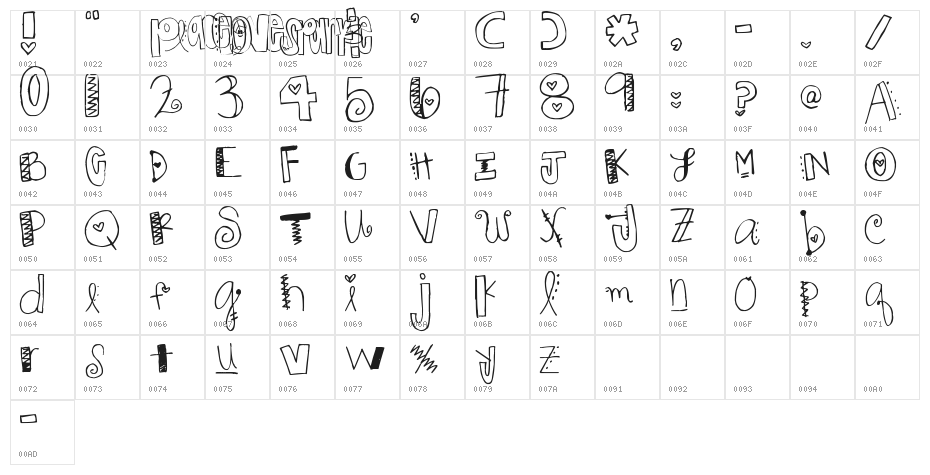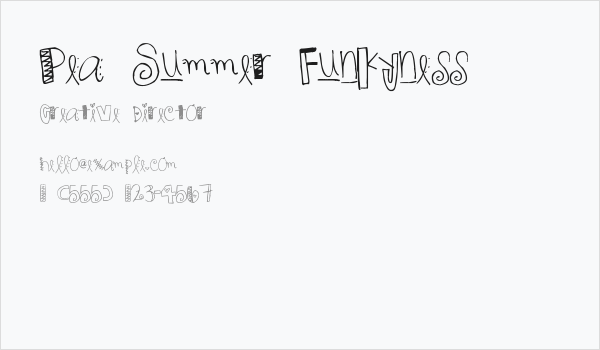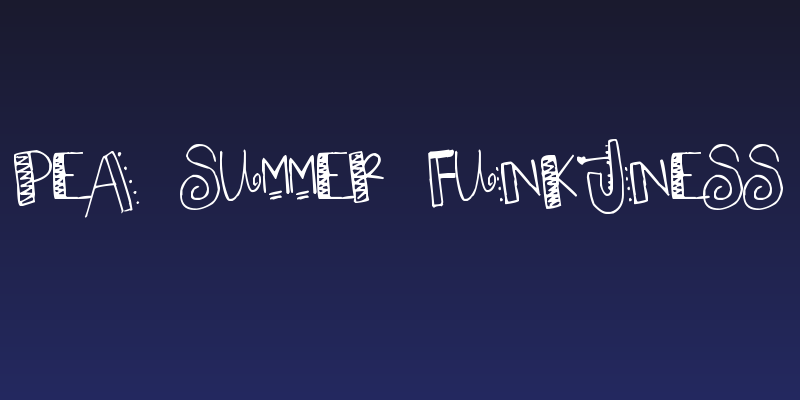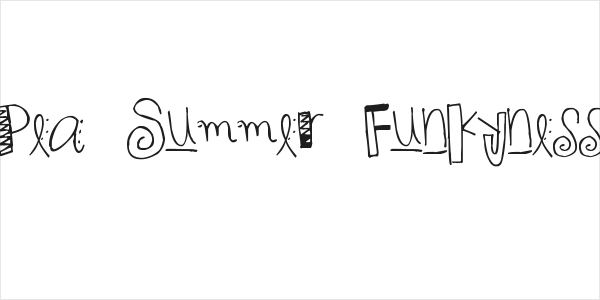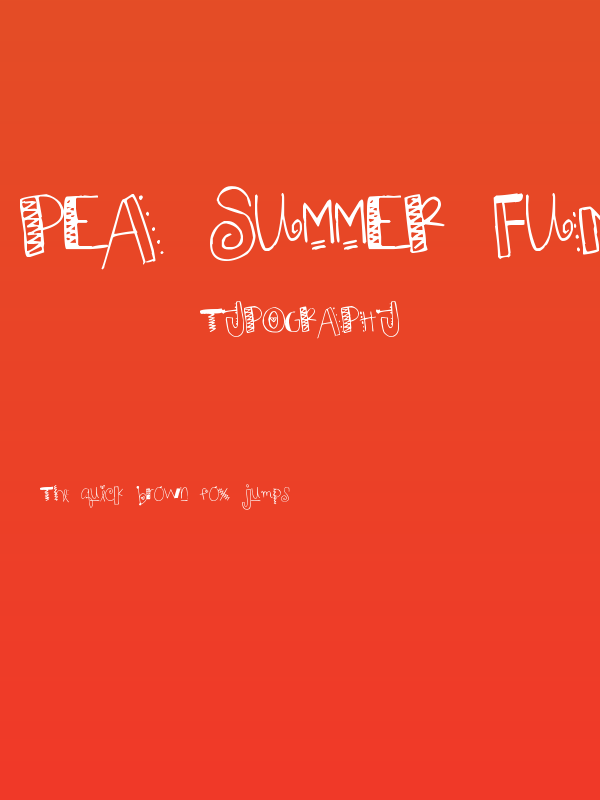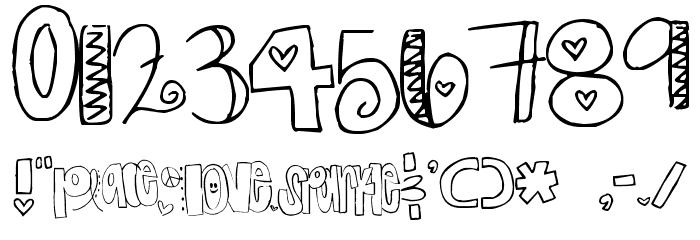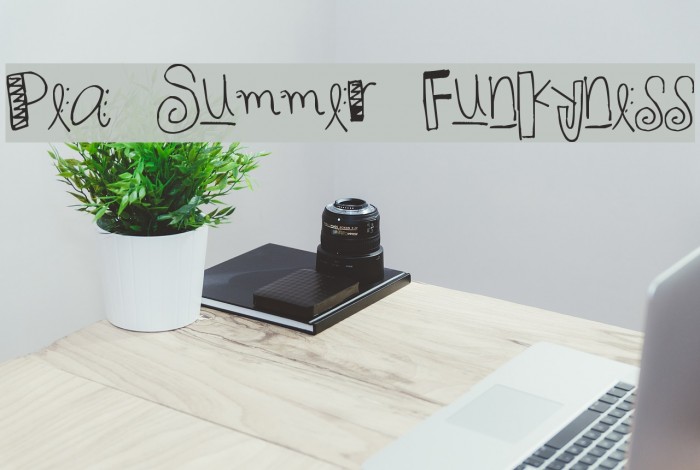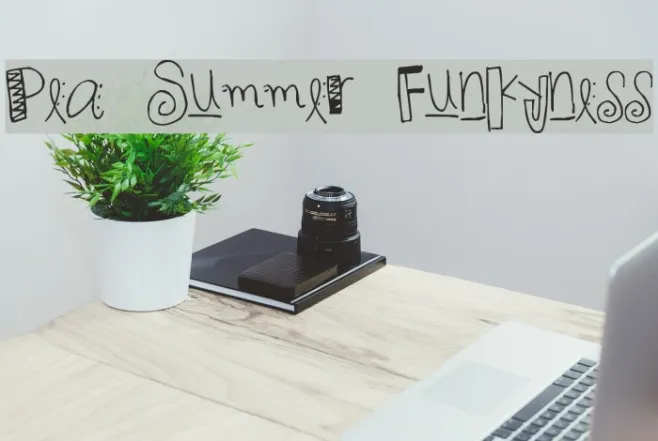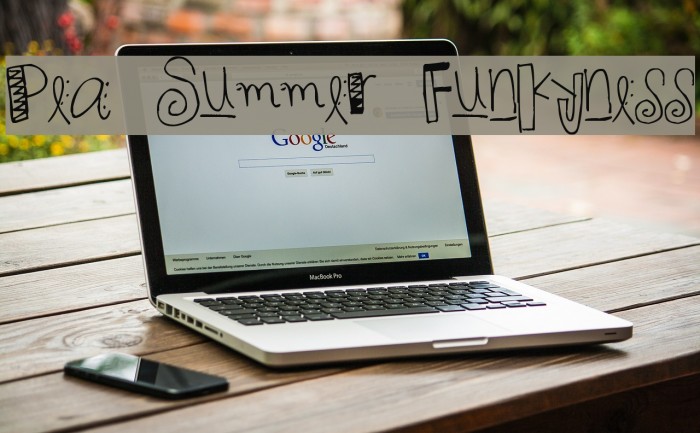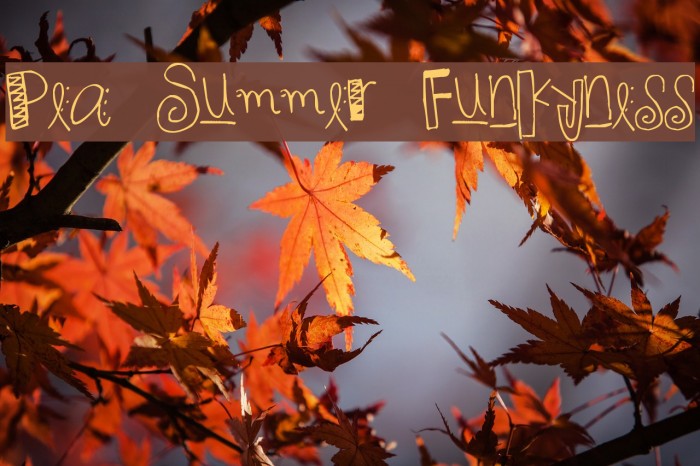
Pea Summer Funkyness Font
Pea Summer Funkyness Description
This font exudes a playful and whimsical charm, characterized by its hand-drawn, irregular style. Each letter is uniquely crafted with decorative elements such as hearts, dots, and swirls, giving it a lively and youthful appearance. The uppercase and lowercase letters vary significantly in form, adding to the font's eclectic and artistic vibe. Numbers and special characters follow the same quirky design, making the entire set cohesive yet delightfully unpredictable. The font's overall aesthetic is reminiscent of doodles or children's handwriting, making it perfect for projects that require a fun and informal touch.
| Use Case | Logos, Headlines, Creative projects |
| Proposed Projects | Ideal for children's books, playful invitations, greeting cards, and creative branding projects. |